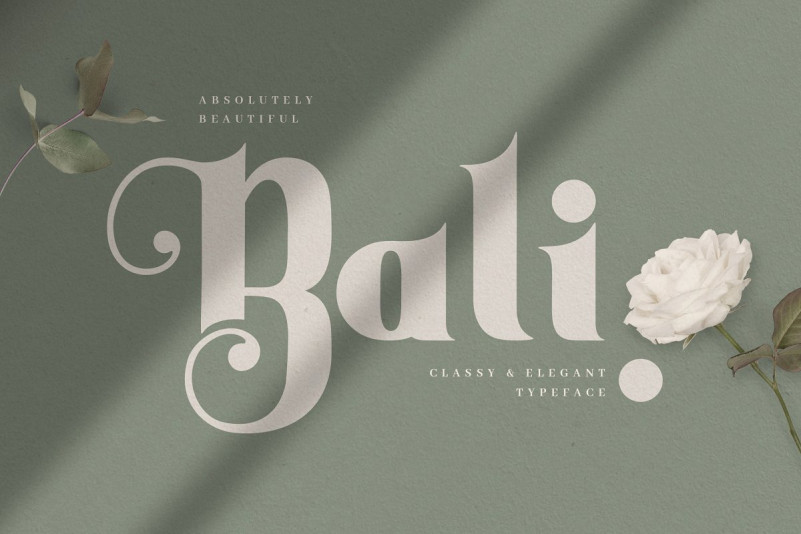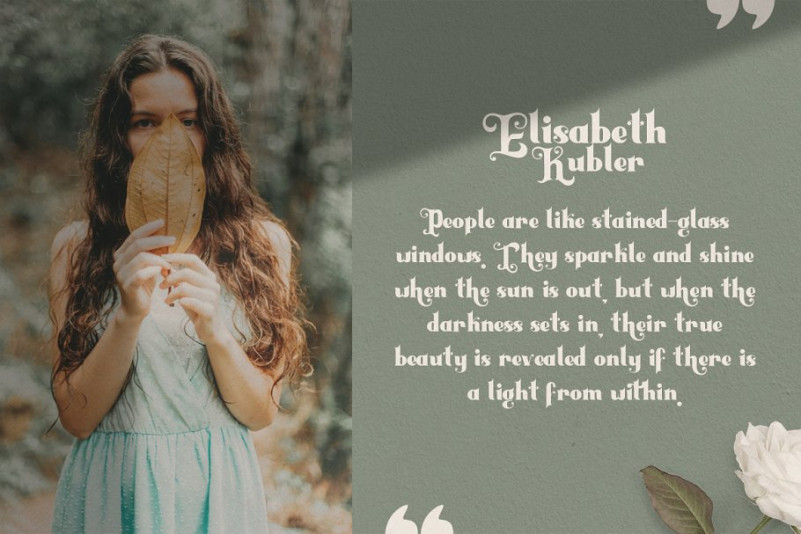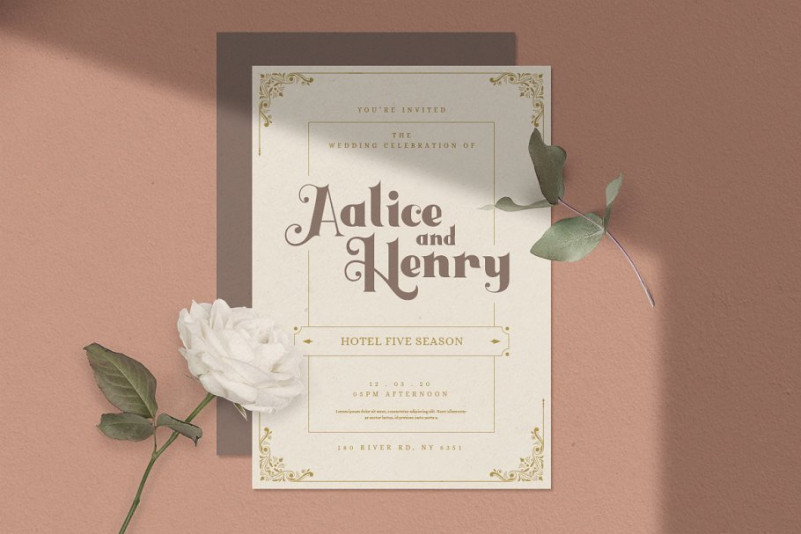
Bali Font
Introducing Bali font. Are you looking for a bold and elegant display serif font that has a luxury vintage feeling? We can help! Try to download our Bali elegant decorative serif font. The font is suitable to use for many occasion such as invitation, banner, movie title, brand, event, and many more 🙂